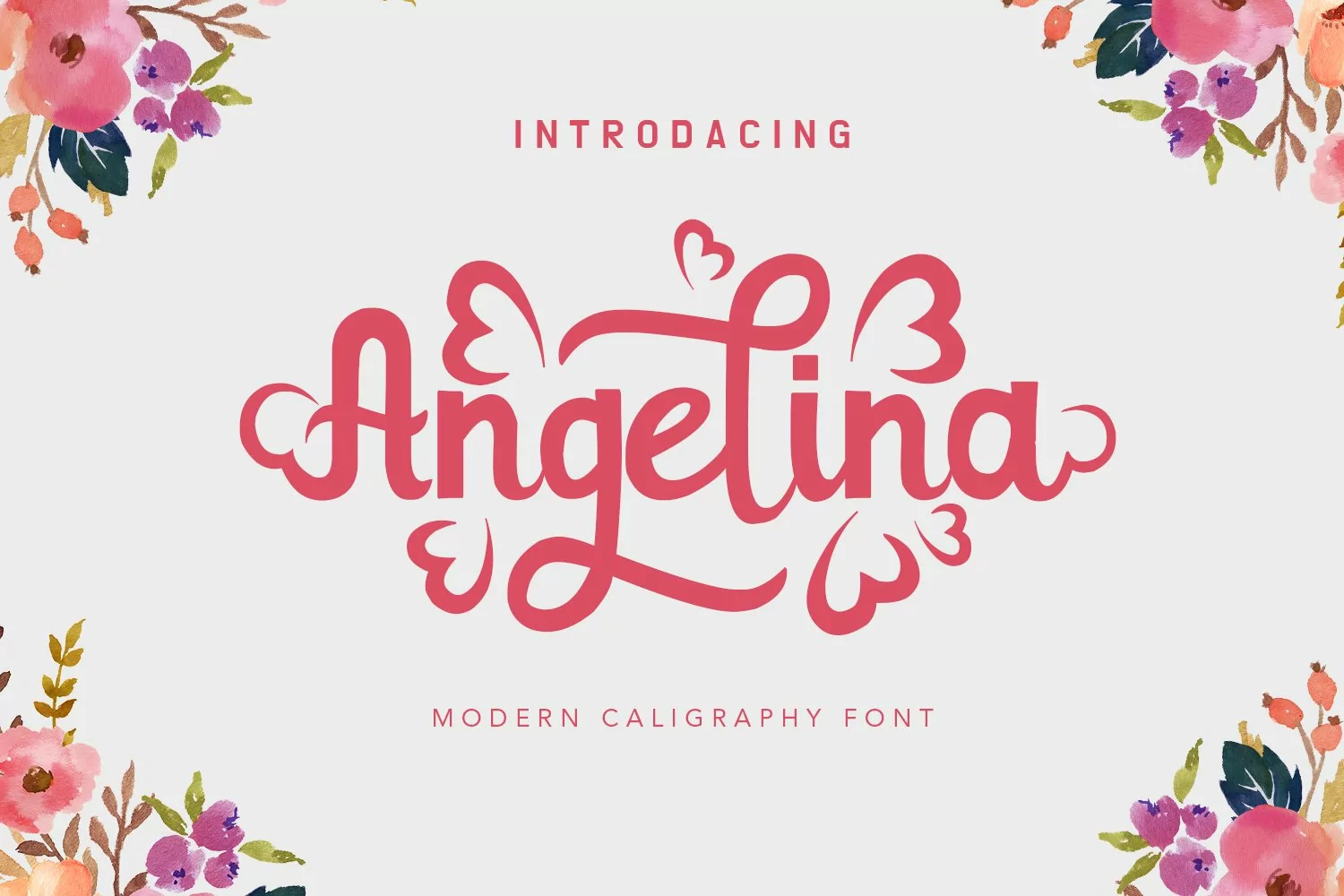
Angelina is a modern calligraphy font, sure to delight all eyes that behold. It has a modern appeal as well as many extras to further embellish and charm. There are both alternate and ligature features. This calligraphy font is smooth and simple with a touch of elegance that personifies quality and timelessness.